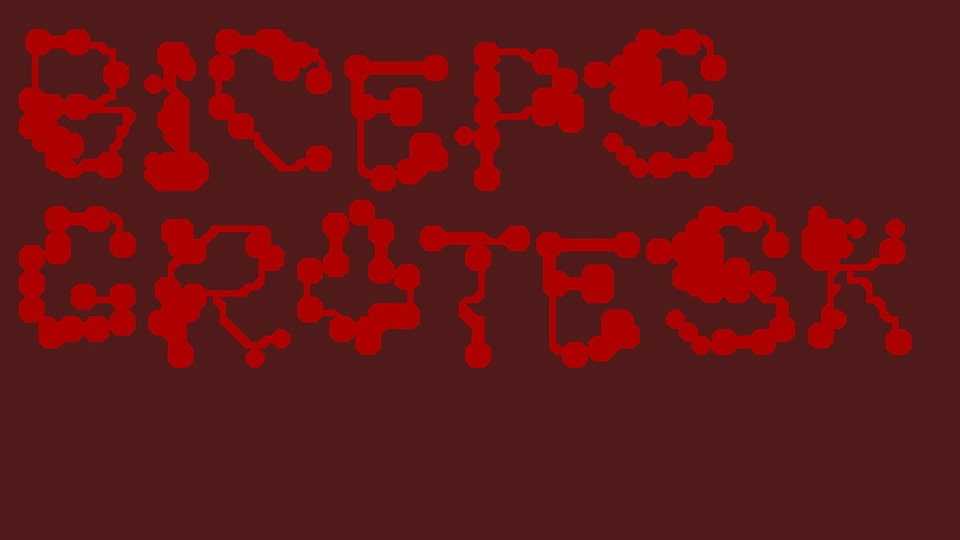
Download Biceps Grotesk font, a highly expressive display typeface made using a modular approach. Each letter is made with either a square or a triangle.